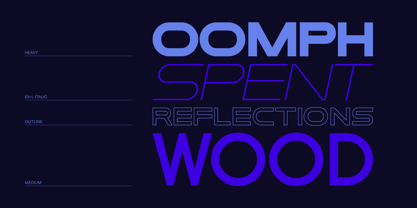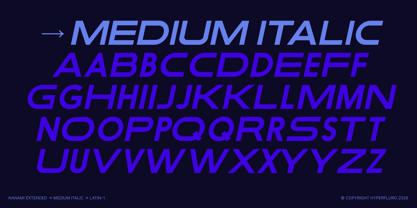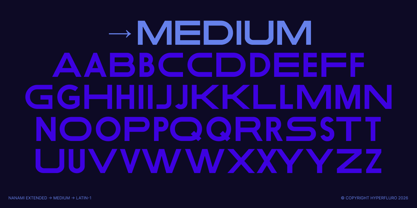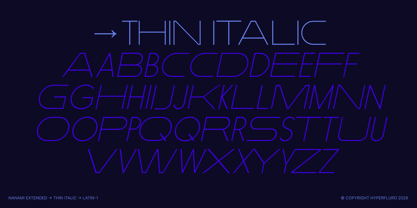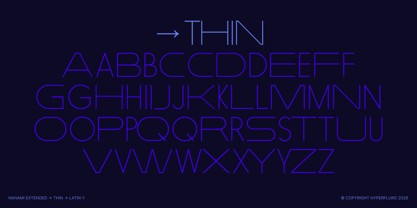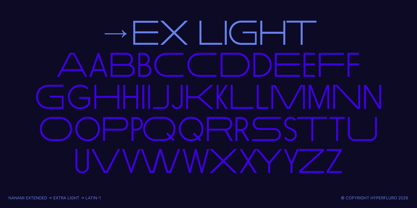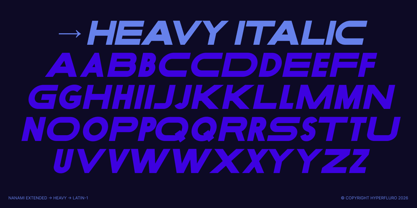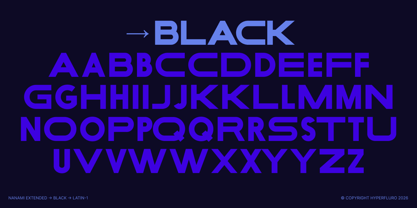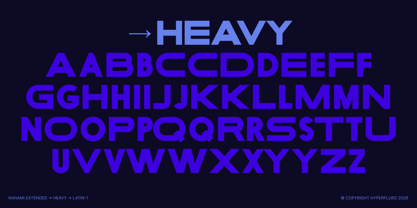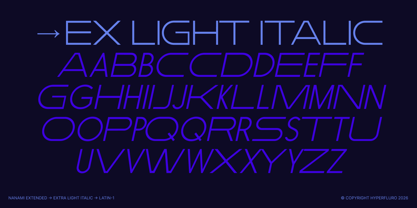
Nanami Extended
by HyperFluro
The Nanami Extended Font Family was designed by Alex Haigh and published by HyperFluro. Nanami Extended contains 12 styles and family package options. More about this family
NANAMI EXTENDED is a bold, geometric sans-serif type family built around width, rhythm and visual impact. Its distinctive extended proportions give every character a strong horizontal presence, while carefully controlled geometric forms keep the design clean, contemporary and highly legible.
Designed as a complete 18-weight family, NANAMI EXTENDED moves from delicate Thin weights through to powerful Black, allowing designers to create dramatic contrast within a single typographic system.
Its combination of wide proportions, geometric construction and multiple weights makes NANAMI particularly effective for branding, editorial design, advertising, posters, packaging, digital interfaces and large-scale display typography.